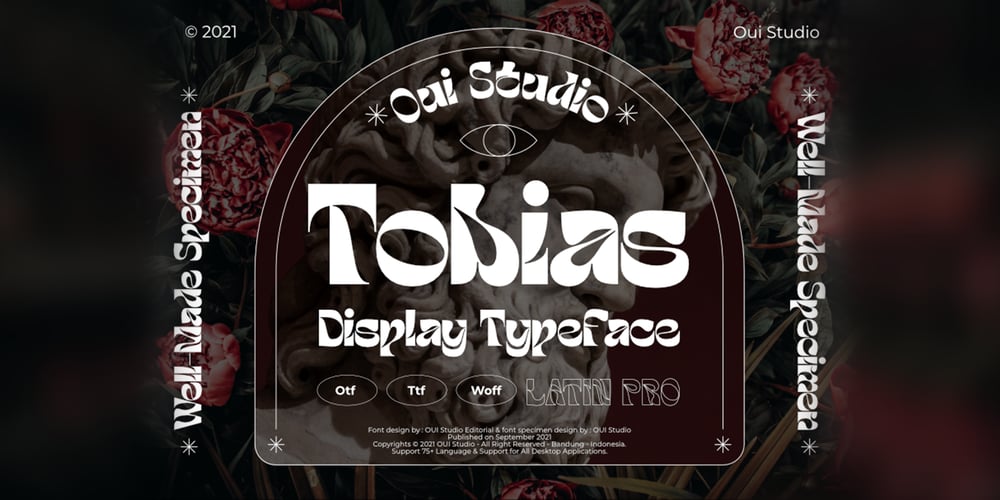
Oui Tobias Font Family was designed by Bobby Satria and published by Oui Studio. Oui Tobias contains 1 styles and family package options. Hello friends! The ‘Tobias’ font is coming, a dynamic and art nouveau feel. Tobias is very inspired by the art nouveau style with a slightly modern touch. It’s perfect for branding, logo, packaging, header, title, t-shirt design, etc. Tobias is great if you pair it with an illustration, it will make the design even more dope.Happy creating 🙂